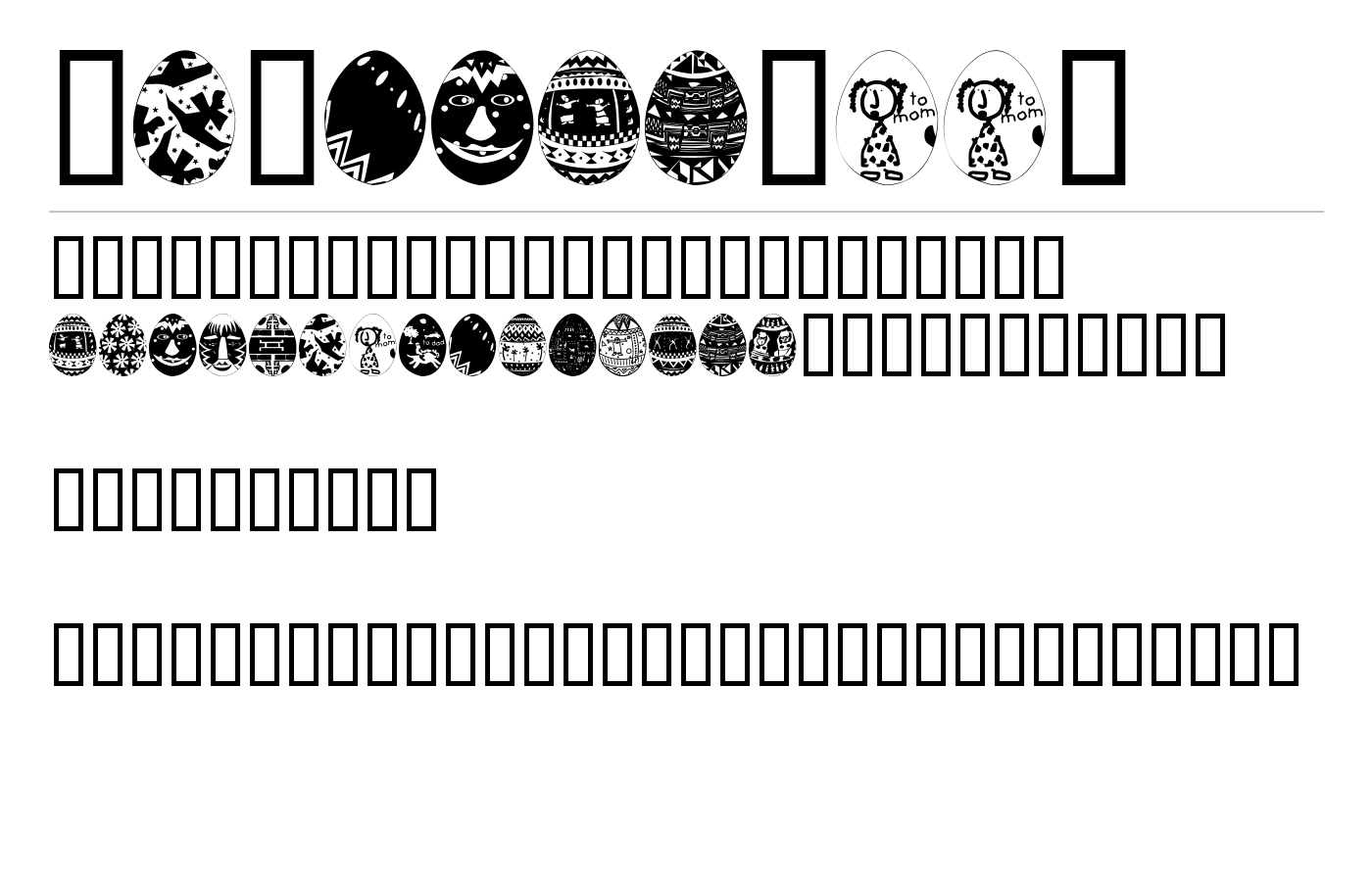
AfricanEggs is a decorative symbol font featuring uniquely patterned egg shapes inspired by African art and culture. With its bold, intricate black-and-white designs, it brings a playful, ethnic, and artistic vibe, perfect for creative projects that seek a strong visual identity in packaging, posters, or cultural branding. This font works well as a display element where its detailed motifs can stand out and make a memorable impact.
AfricanEggs Font
About AfricanEggs Font